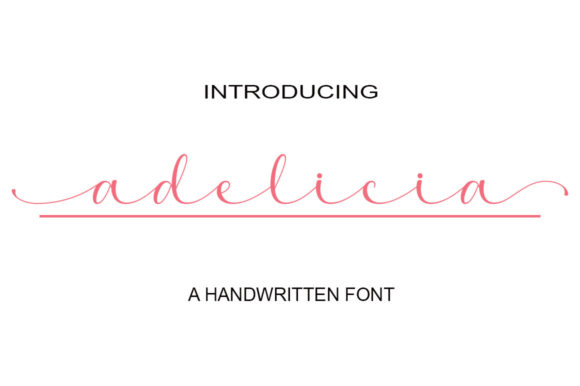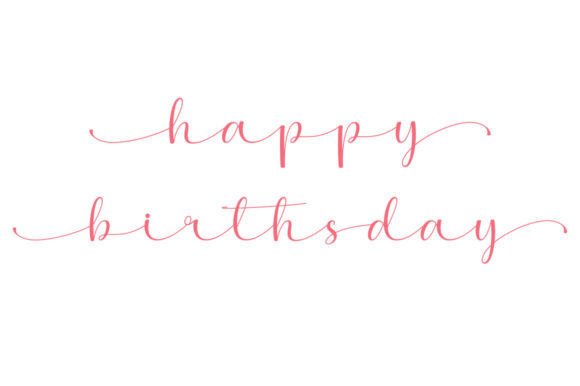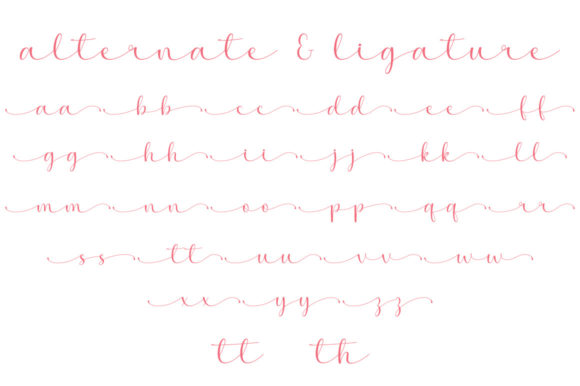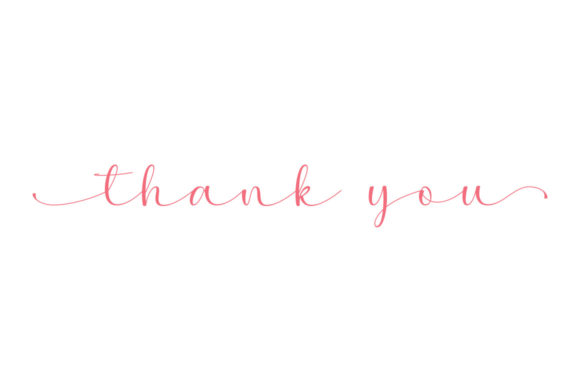
Adelicia Font
Adelicia is a romantic and sweet handwritten font, featuring characters that dance along the baseline. It will add a luxurious spark to any project you wish to create! This font is PUA encoded which means you can access all of the amazing glyphs and ligatures with ease!